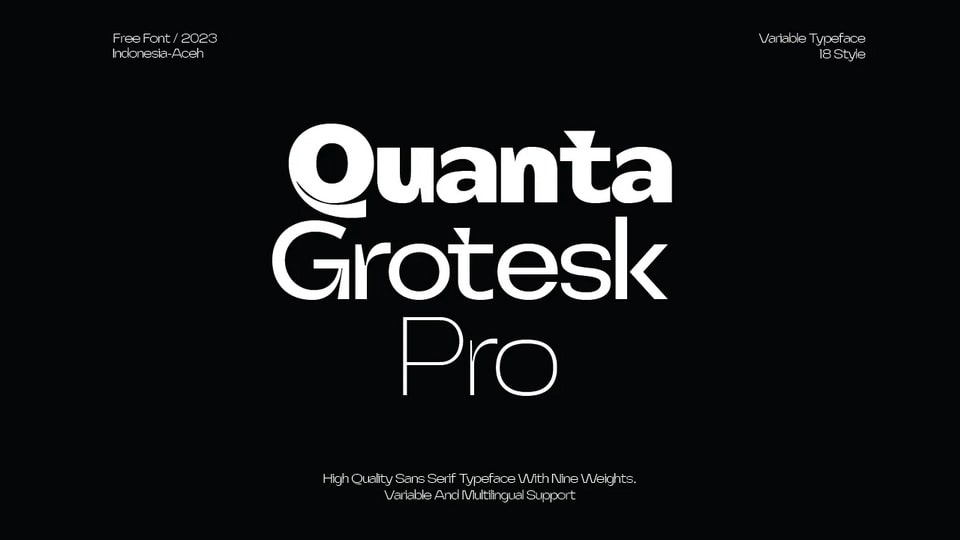
Download Quanta Grotesk Pro font, a modern and versatile variable typeface designed to meet the needs of contemporary typography. With its sleek and elegant design, Quanta Grotesk Pro font is neutral design and subtle character suit diverse projects, from branding and advertising to editorial and product design.
Designer: Trotoart Design